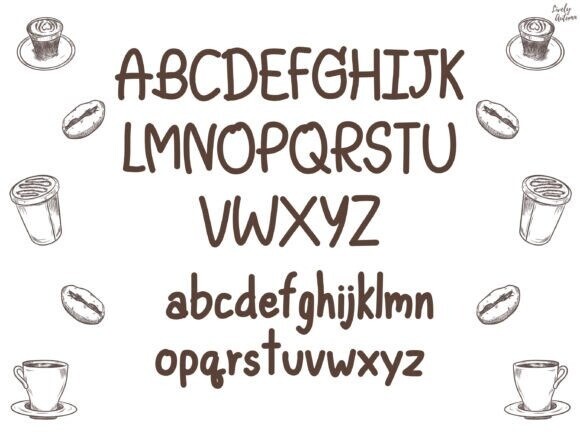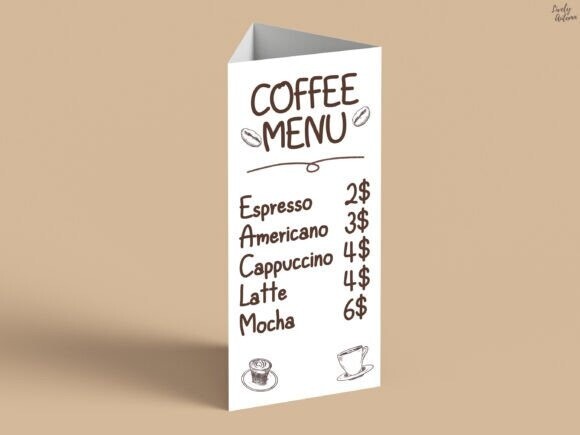
Mocha Cute Font
Mocha Cute Font is a cute, simple handwriting font perfect for your personal projects and various projects. From invitations to posters, social media graphics, journals, greeting cards, and much more.